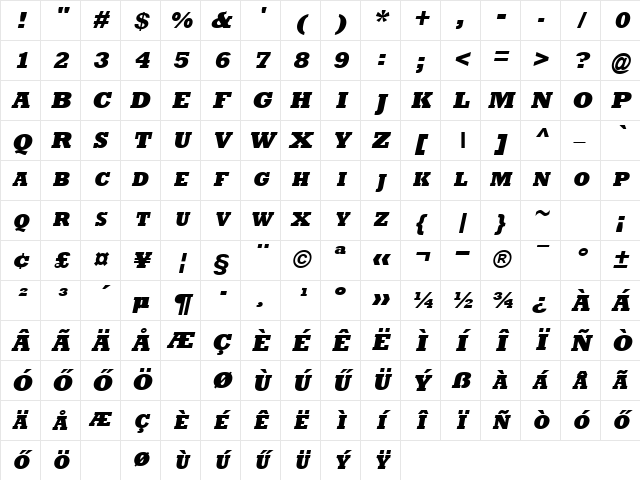
Hu_Shakewell ExpBlk  Oblique Regular
Design Context for Hu_Shakewell ExpBlk Oblique
Hu_Shakewell ExpBlk Oblique is a composed and adaptable typeface that performs quietly and consistently across a wide range of design contexts. The slanted form adds forward momentum and visual energy.